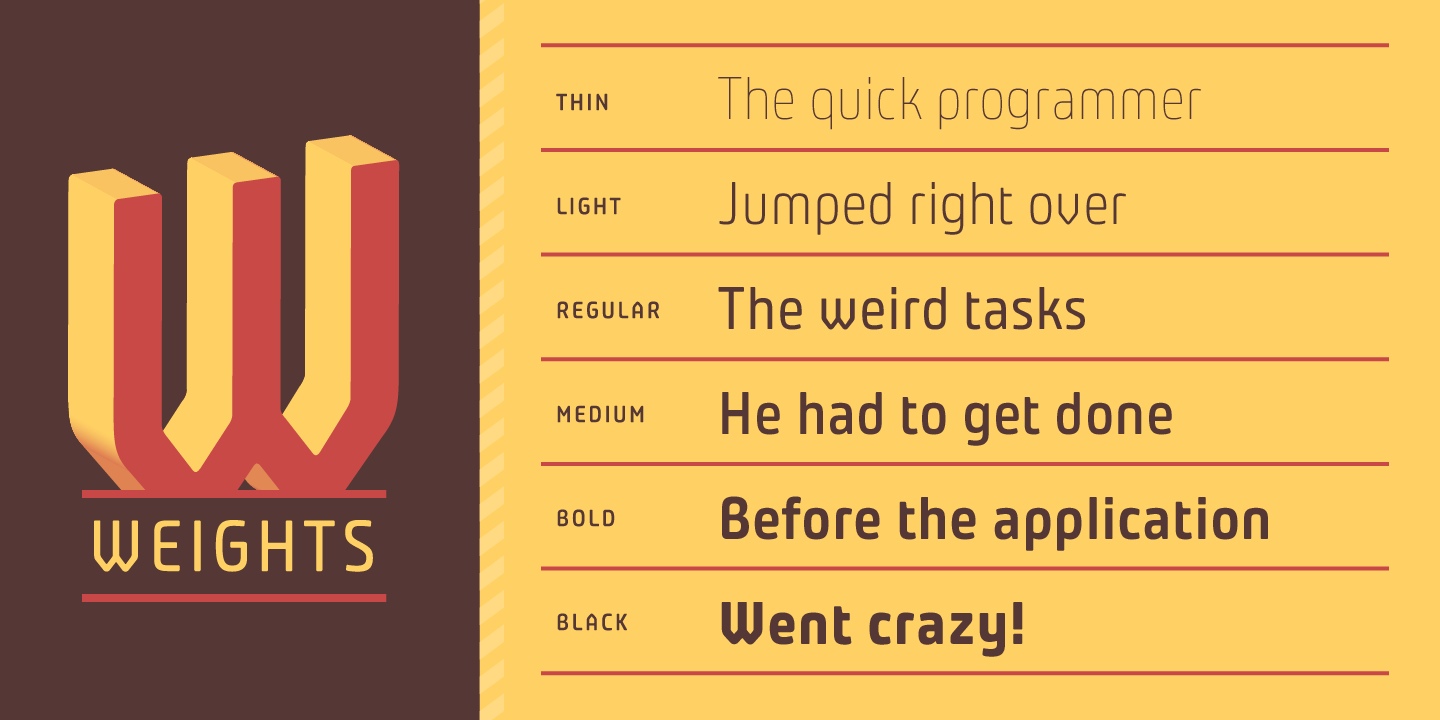
Plau Font
Plau Font is perfect for playful branding projects, creative children's designs, vibrant poster layouts, fun marketing campaigns, educational materials, entertainment graphics, casual web interfaces, and youthful brand communications.
This exciting Plau Font delights audiences with its cheerful personality and energetic letterforms that radiate joy, creativity, and approachable warmth. The font's playful character and friendly aesthetic make it an exceptional choice for projects requiring positive energy, accessibility, and engaging visual communication that connects with diverse audiences across all age groups.
The Plau Font family includes multiple expressive variations such as Regular, Bold, Light, Rounded, Condensed, and Playful versions, providing designers with extensive options for creating vibrant and engaging typographic experiences that capture attention and inspire positive emotions.
The cheerful character of Plau Font makes it particularly effective for children's brands, educational institutions, entertainment companies, creative agencies, and lifestyle brands that need to communicate fun, approachability, and positive energy. Its friendly styling resonates with audiences who appreciate warmth, creativity, and optimistic brand messaging.
Creative professionals choose Plau Font for its exceptional ability to create emotional connections and positive brand associations across various applications. The font maintains its playful charm from small digital interfaces to large environmental graphics, ensuring consistent brand personality and engaging visual communication.
The versatile applications of Plau Font extend from intimate personal projects to comprehensive brand identity systems, maintaining its joyful character across different scales and contexts. This adaptability makes it valuable for organizations requiring consistent positive expression across multiple platforms and communication channels.
Modern brands utilize Plau Font to differentiate themselves through authentic positivity and creative energy in competitive markets. The typeface's approachable warmth helps establish emotional connections with consumers while communicating brand values of creativity, inclusivity, and genuine care for customer experiences and community engagement.